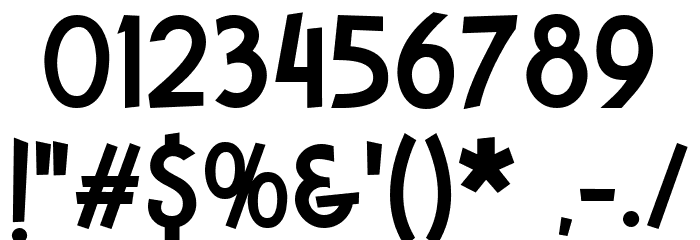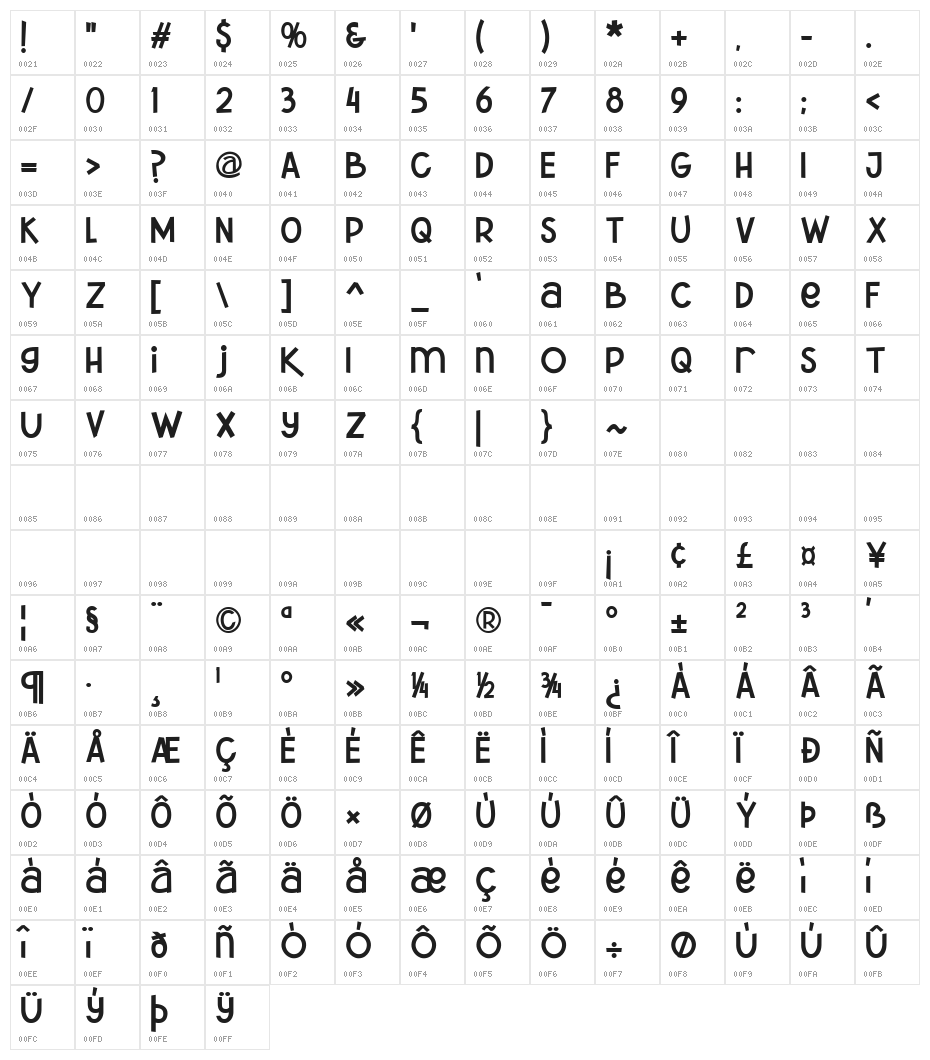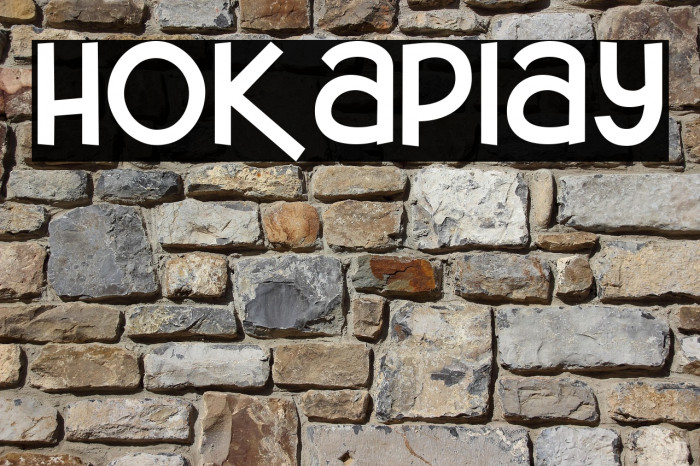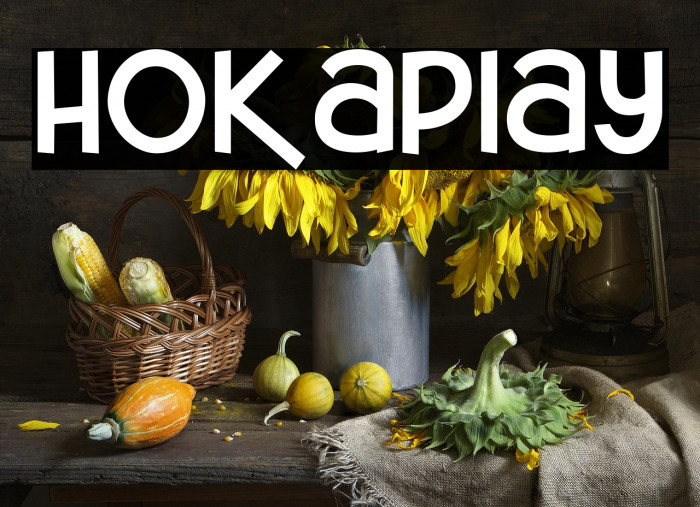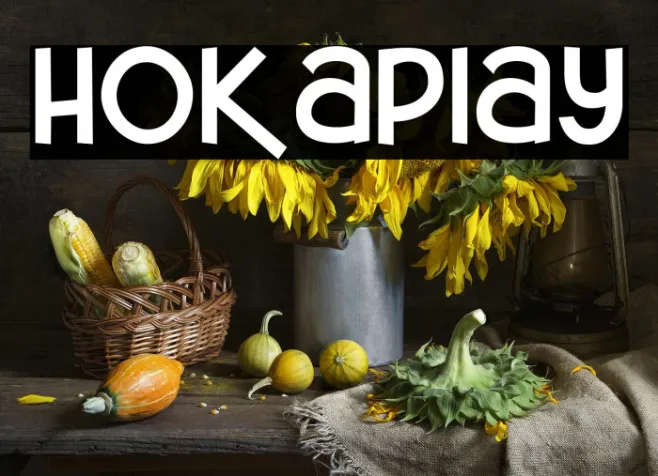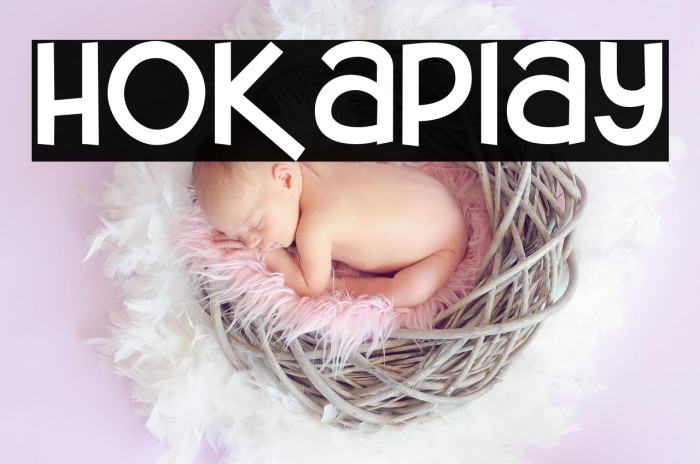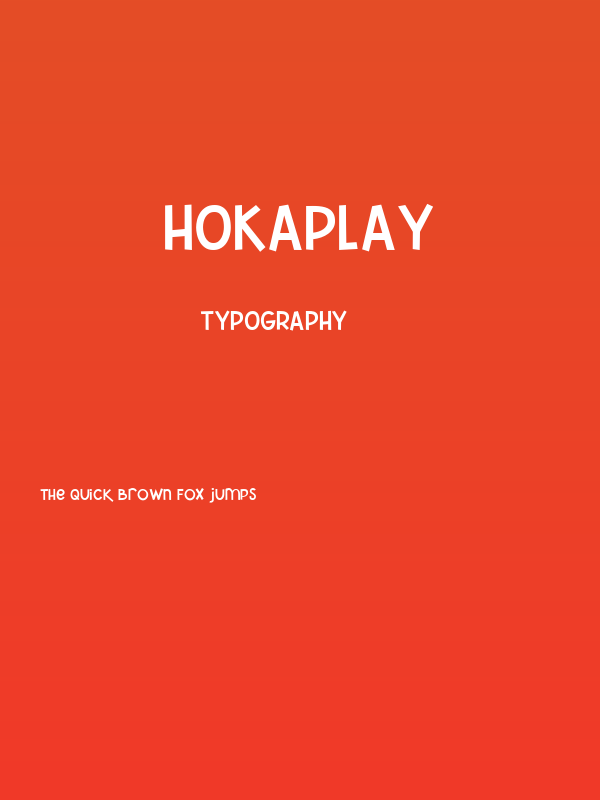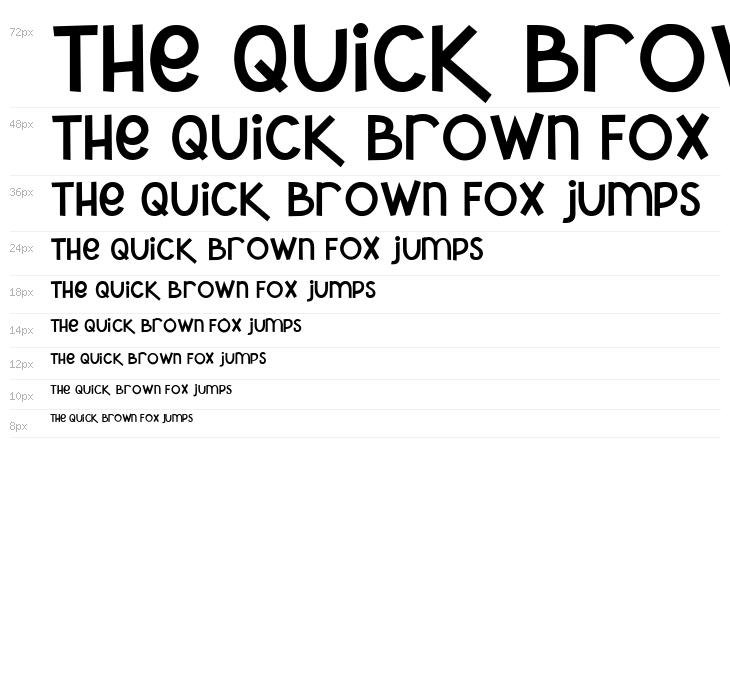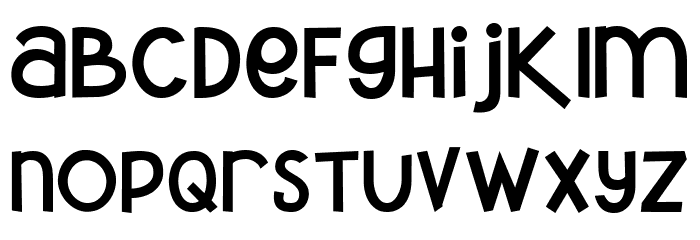
Hokaplay Font
Hokaplay Description
This font features a playful and bold design with a distinctively quirky character. The uppercase and lowercase letters exhibit a whimsical style, with some characters having unique curves and angles that add to its charm. The numbers are bold and consistent with the overall playful theme. Special characters maintain the same lively aesthetic, making the font suitable for creative and informal applications. The strokes are consistent in weight, providing a uniform appearance across all characters. This font is ideal for projects that require a fun and engaging look.